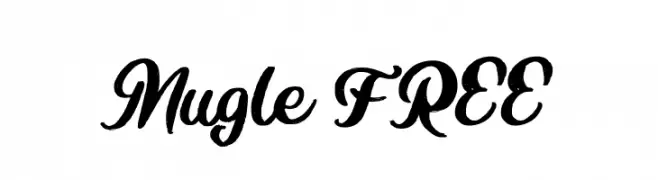
An elegant, flowing script font with a calligraphic style.
A bold, flowing script font with elegant curves and ornate flourishes.
A bold, rounded font with smooth curves and a modern, friendly style.
A playful, handwritten script font with dynamic, looping strokes.
An elegant script font with flowing, cursive letters and high contrast strokes.
An elegant script font with flowing, cursive lines and graceful curves.
A bold, dynamic script font with flowing cursive letterforms and elegant swashes.
A graceful script font with flowing, decorative strokes and elegant flourishes.
A bold, expressive script font with a hand-painted, artistic style.
A fluid, cursive font with a natural handwritten style.